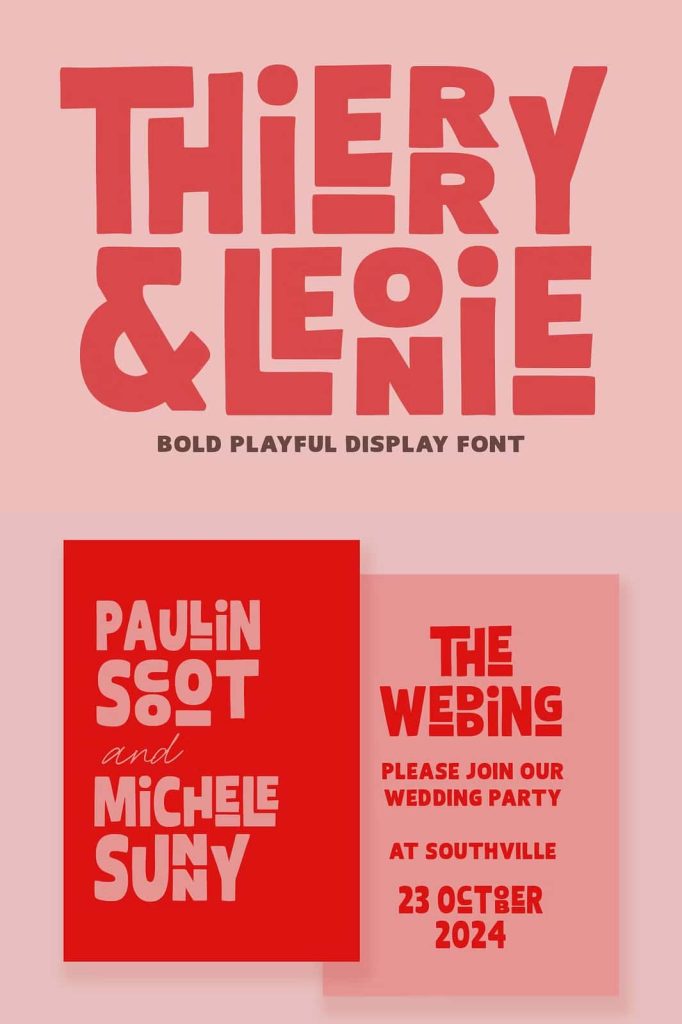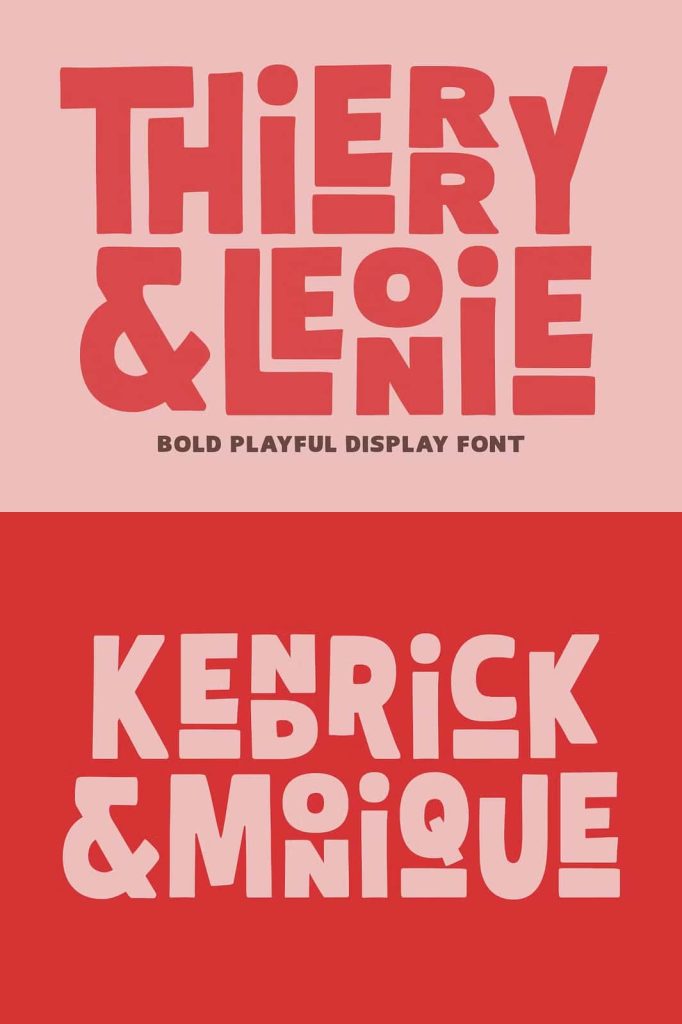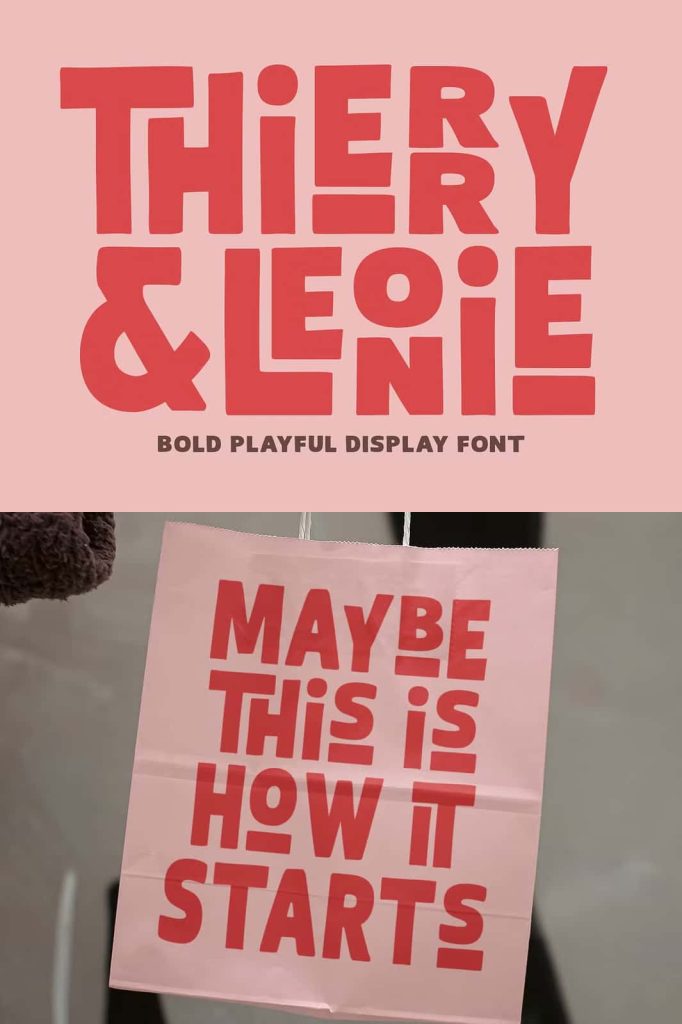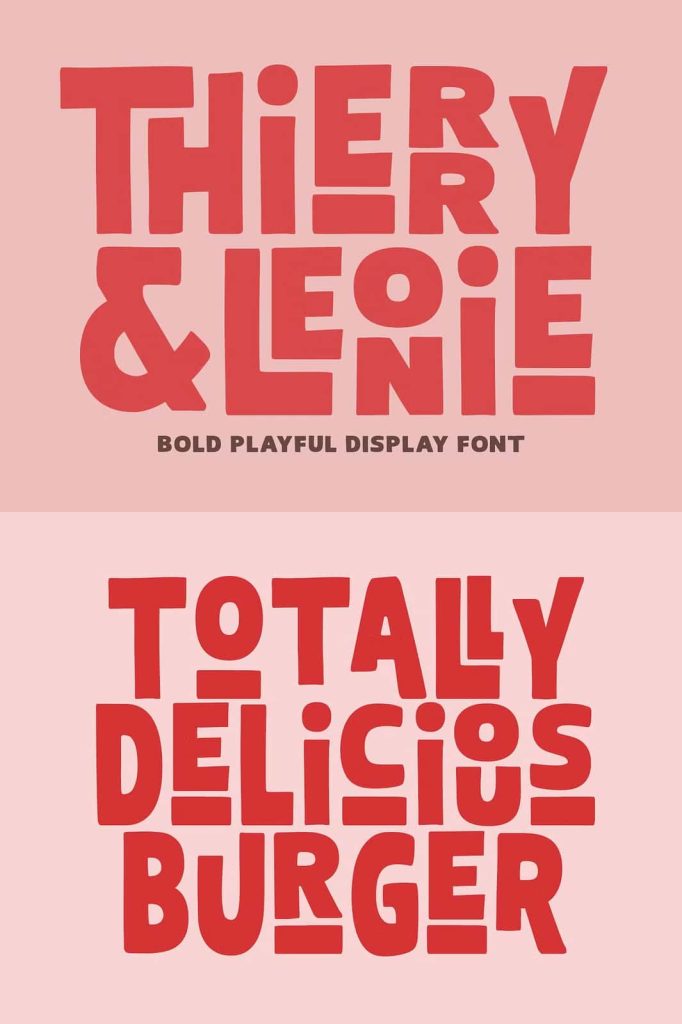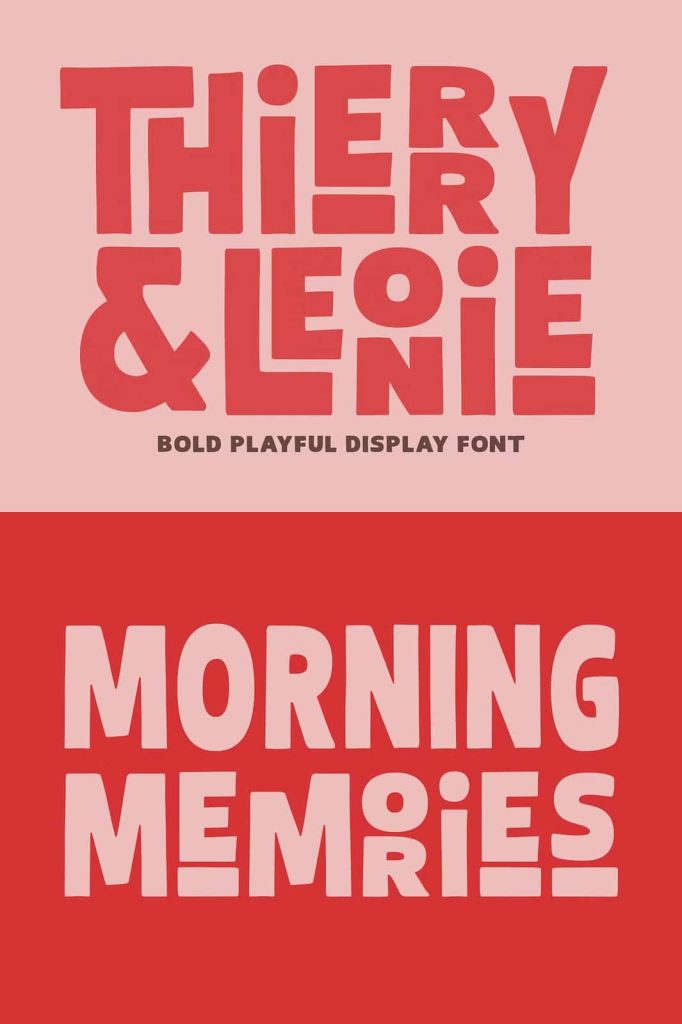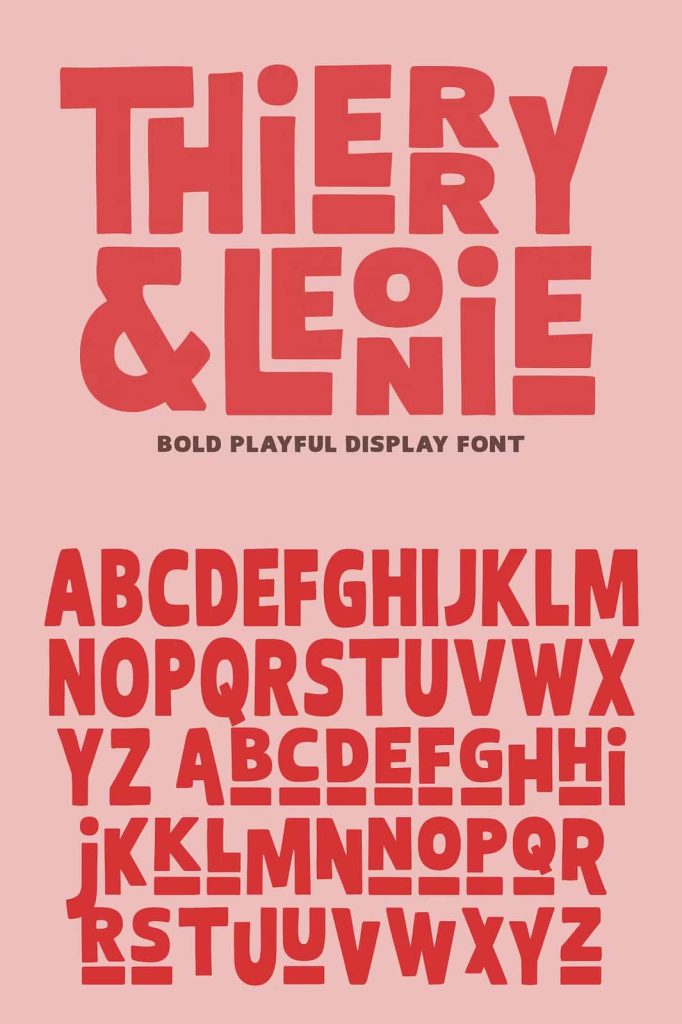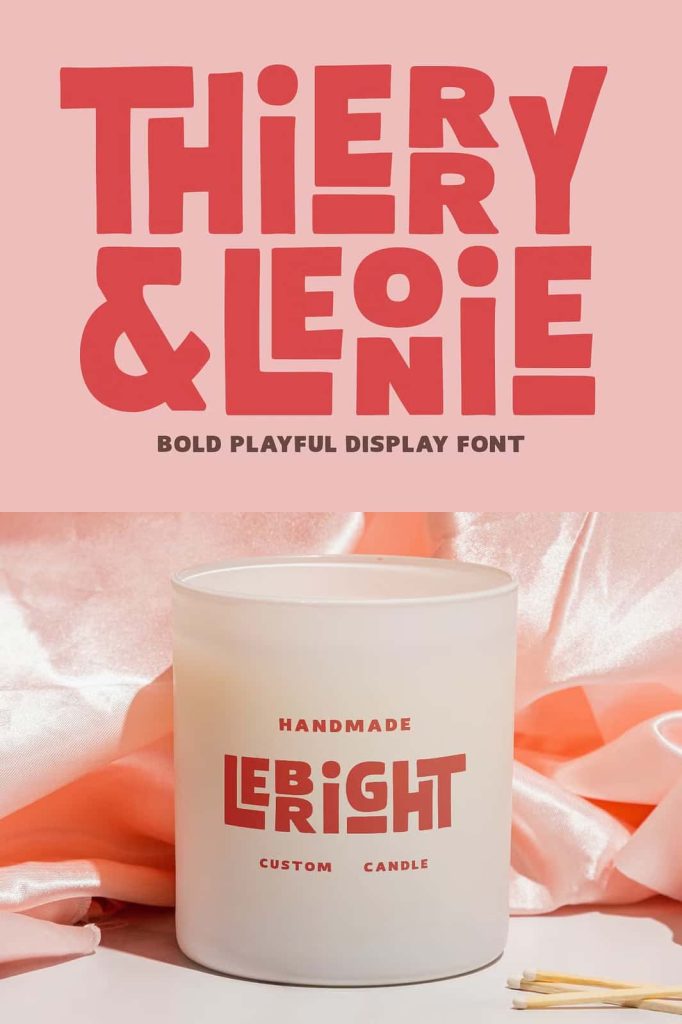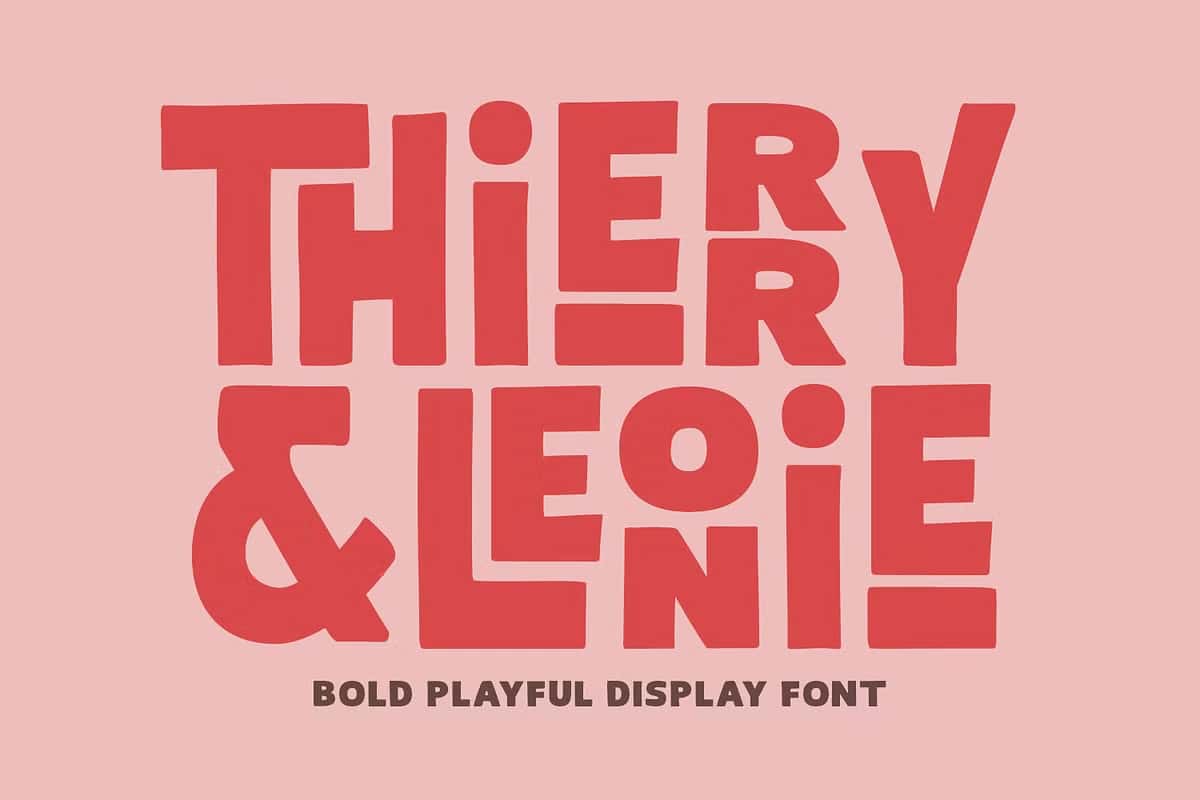
Thierry Leonie Font – Playful, Bold, and Full of Personality
Thierry Leonie Font is your new best friend in the world of typography—a fun, expressive, and modern display typeface designed to make your designs stand out. With its bold structure and condensed proportions, this font brings energy and charisma to every project. It’s more than just a typeface—it’s a visual statement that captures attention and adds a distinct personality to your creative work. Whether used for branding, posters, packaging, or digital content, Thierry Leonie ensures your message shines with confidence and joy.
Bold Design Meets Playful Energy
The Thierry Leonie Font was created to bring vibrancy and fun to contemporary design. Its bold strokes and condensed form create a strong visual impact, while the rounded details and smooth curves add warmth and friendliness. This balance of power and playfulness makes Thierry Leonie versatile enough to fit a wide range of design needs—from fashion and lifestyle branding to event invitations and editorial layouts.
Unlike ordinary display fonts, Thierry Leonie embraces individuality. Each letterform feels dynamic and alive, reflecting the designer’s focus on movement and expression. The condensed design allows for efficient use of space without sacrificing style, making it ideal for impactful headlines, compact layouts, and expressive titles. Whether displayed in large scale or smaller compositions, the font’s clarity and charm remain unmistakable.
Perfect for Expressive and Modern Design
Thierry Leonie Font is designed for creators who want to infuse personality into their work. It captures a sense of joy and liveliness, making it perfect for branding, social media graphics, editorial design, and packaging. The font’s cheerful tone resonates with audiences, creating an instant connection through its approachable and modern aesthetic.
Its condensed form ensures that every letter carries weight and authority, while its playful details soften the tone, striking a balance between boldness and friendliness. Designers will appreciate how easily Thierry Leonie adapts to different creative contexts. It can look chic and sophisticated in minimalist layouts or energetic and fun when paired with bright colors and dynamic visuals.
Design Features That Stand Out
Every element of the Thierry Leonie Font has been crafted to enhance visual communication. Its consistent rhythm and tight spacing give text a cohesive, professional look, while the organic curves maintain a sense of hand-drawn authenticity. This combination makes Thierry Leonie not only eye-catching but also versatile enough to use across print and digital platforms.
The font’s condensed proportions make it perfect for short, impactful messages. It works exceptionally well for headlines, posters, and logo designs where space is limited but expressiveness is key. Its legibility remains strong at multiple sizes, ensuring clarity and precision even in complex layouts.
Bring Personality to Every Project
Thierry Leonie isn’t just a font—it’s a mood. Its cheerful nature infuses energy into any design project. The font’s friendly curves and bold shapes make it ideal for creative branding projects that seek to communicate authenticity and approachability. Whether you’re designing a playful children’s brand, a lively café logo, or a bold editorial spread, Thierry Leonie Font brings the perfect touch of personality.
The typeface’s condensed structure also lends itself well to modern, urban aesthetics. It can easily blend with contemporary graphic design trends while maintaining a timeless appeal. This adaptability allows designers to push boundaries and experiment freely without losing cohesion or readability.
Why Choose Thierry Leonie Font
- Playful, bold, and expressive design for standout visuals
- Condensed letterforms for space-efficient layouts
- Perfect for branding, packaging, posters, and digital media
- Excellent readability in both large and small sizes
- Balances modern structure with handcrafted warmth
Choosing Thierry Leonie means choosing confidence, creativity, and charm. Its bold personality helps your designs tell a story that feels both personal and professional. Every letter carries a rhythm that draws the viewer in, making it impossible to overlook.
Conclusion
Thierry Leonie Font is the ultimate choice for designers seeking a display typeface that radiates energy and style. Its bold yet friendly character transforms simple text into captivating visuals. With its condensed structure, smooth curves, and playful charm, Thierry Leonie perfectly blends strength and creativity. Whether you’re building a modern brand, designing attention-grabbing posters, or crafting expressive headlines, this font ensures your message speaks loudly and beautifully. Bring your ideas to life with Thierry Leonie—where personality meets design excellence.